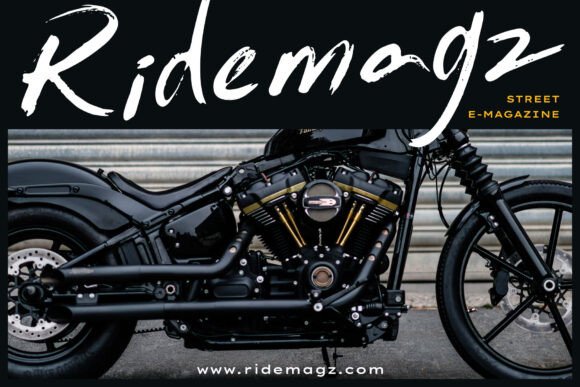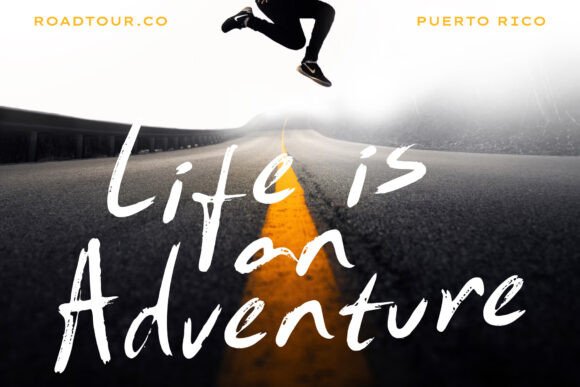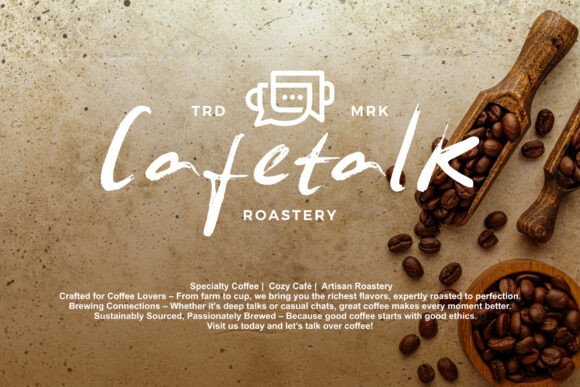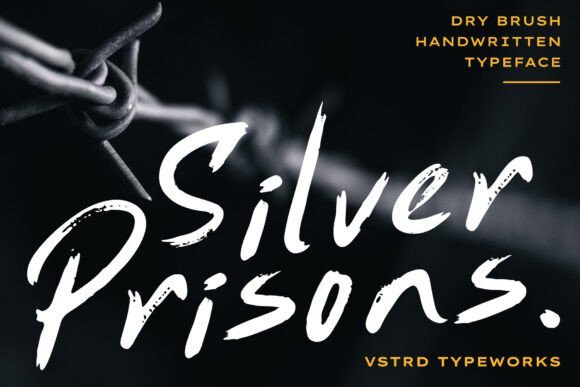
Introduction to Silver Prisons Font
Silver Prisons – Dry Brush Handwritten Font Unleash bold creativity with Silver Prisons, a dynamic dry brush script font crafted from natural, hand-scanned brush strokes.
Its raw, textured feel delivers an authentic handwritten touch, making it perfect for designs that demand energy and personality Whether you’re designing logos, signatures, video titles, product branding, quotes, printable templates, posters, flyers, t-shirts, or adding a striking overlay to images, Silver Prisons brings a handcrafted aesthetic that stands out.
Key Features of Silver Prisons Font
Why Choose Silver Prisons Font?
Silver Prisons Font offers exceptional quality and versatility, making it a valuable addition to your design toolkit. Whether you’re creating for personal projects or commercial use, Silver Prisons Font delivers professional results.